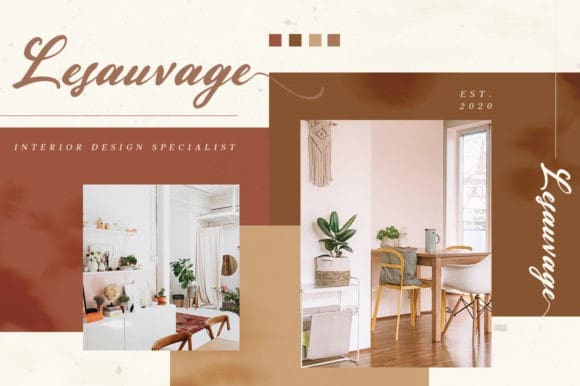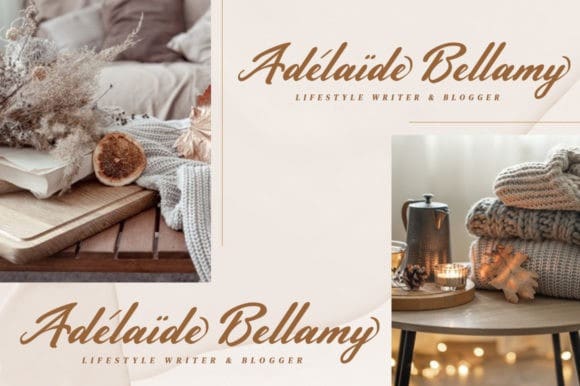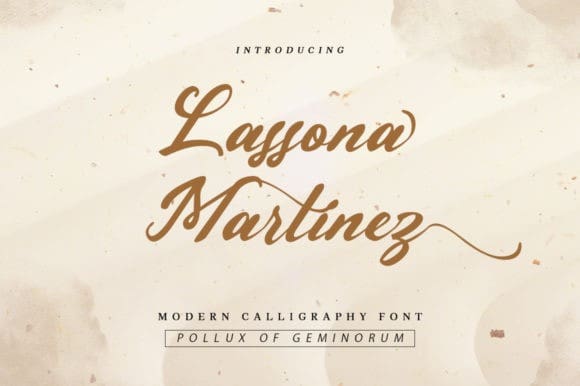
Lassona Martinez Font
Lassona Martinez Font is a beautiful and light handwritten font with a unique feel and a stunning impact. It will add a luxury spark to any design project that you wish to create! This font is PUA encoded which means you can access all glyphs and swashes with ease!